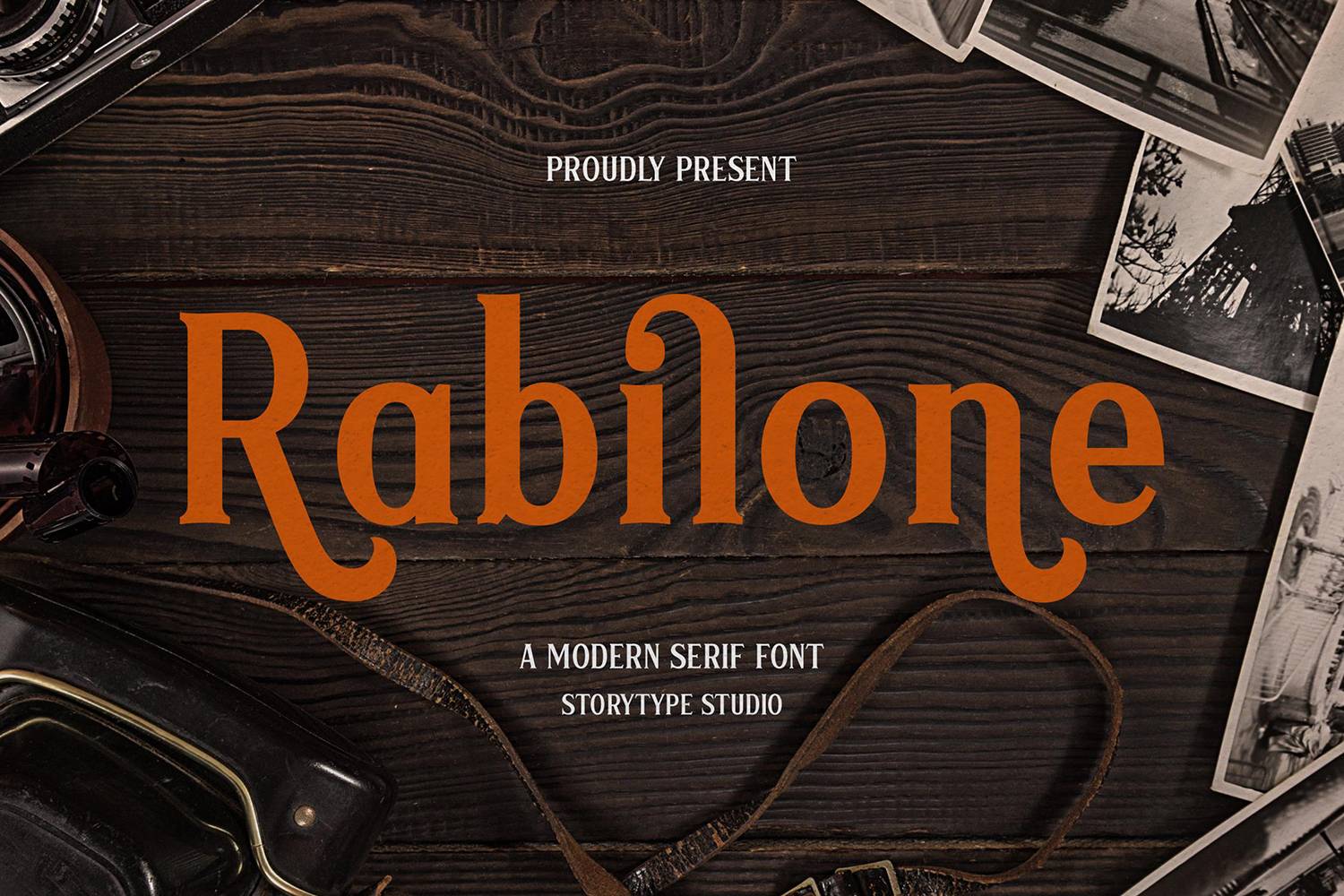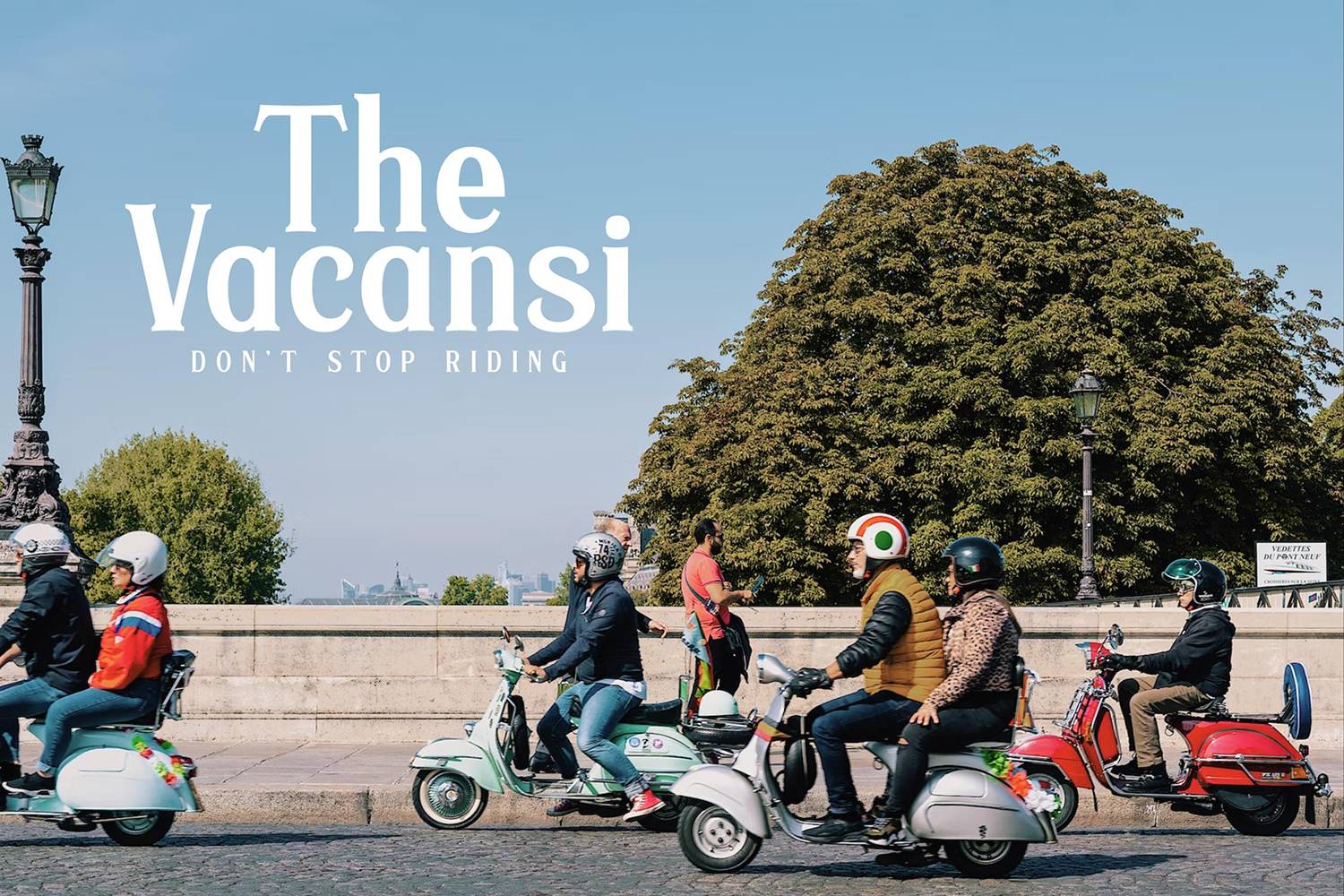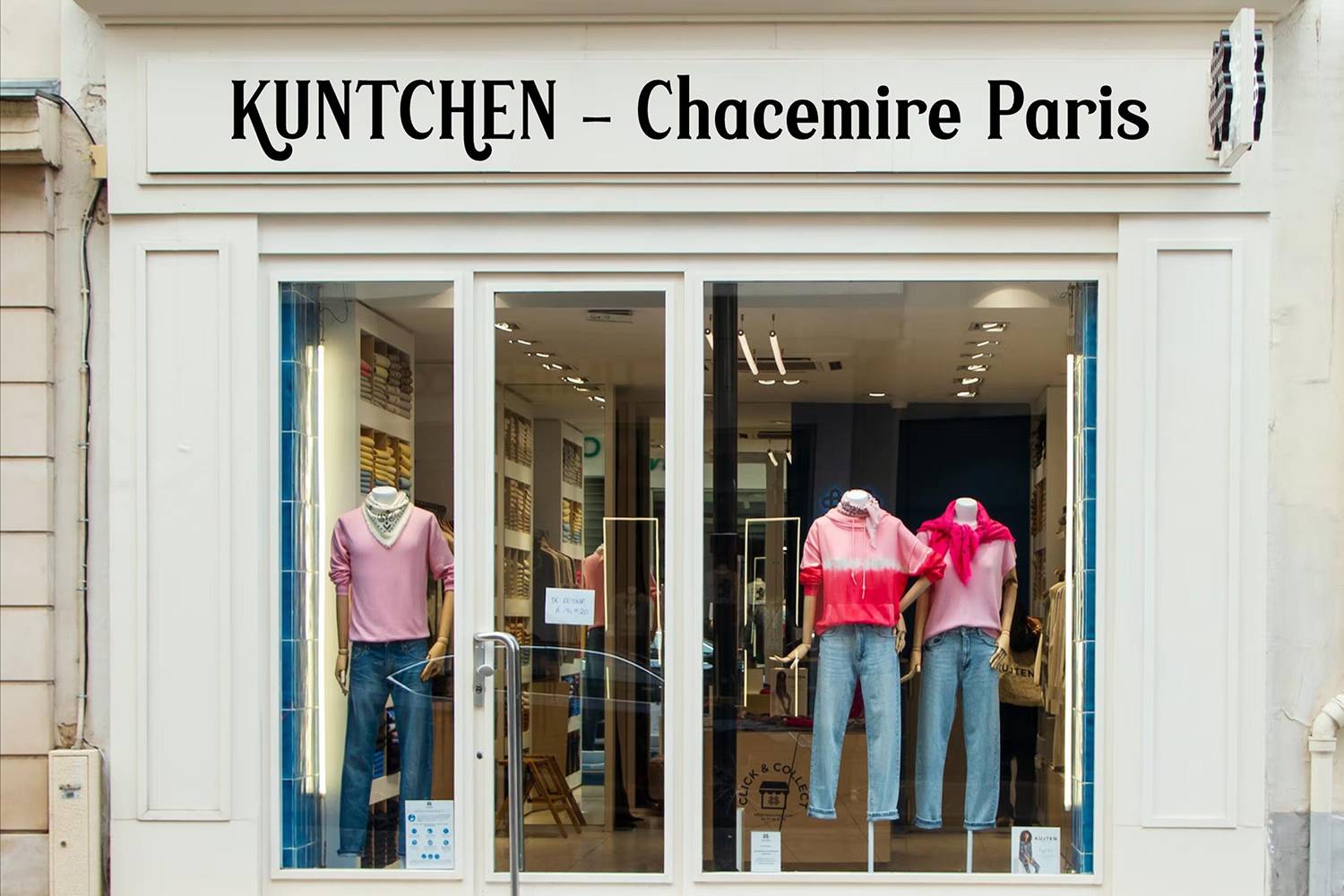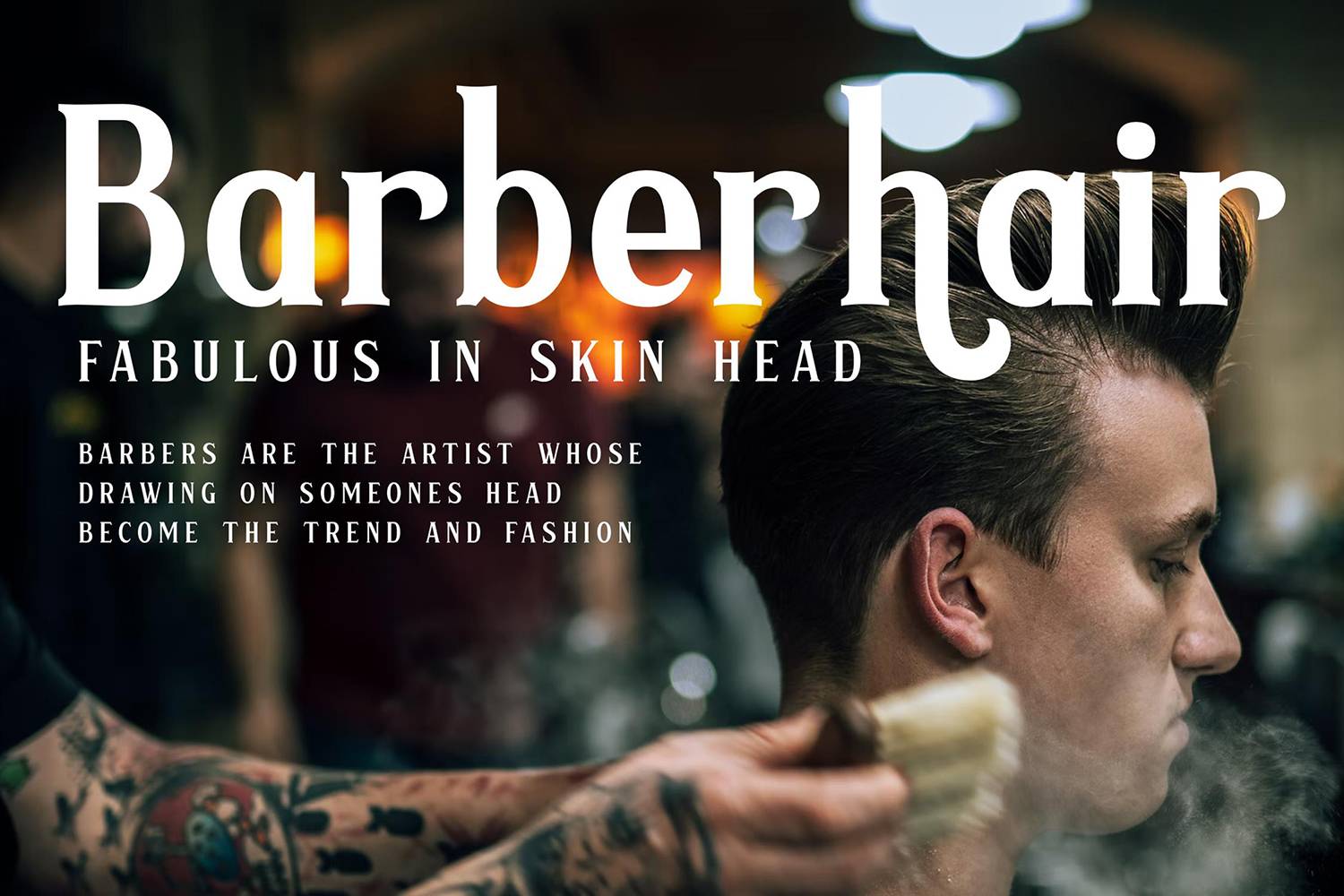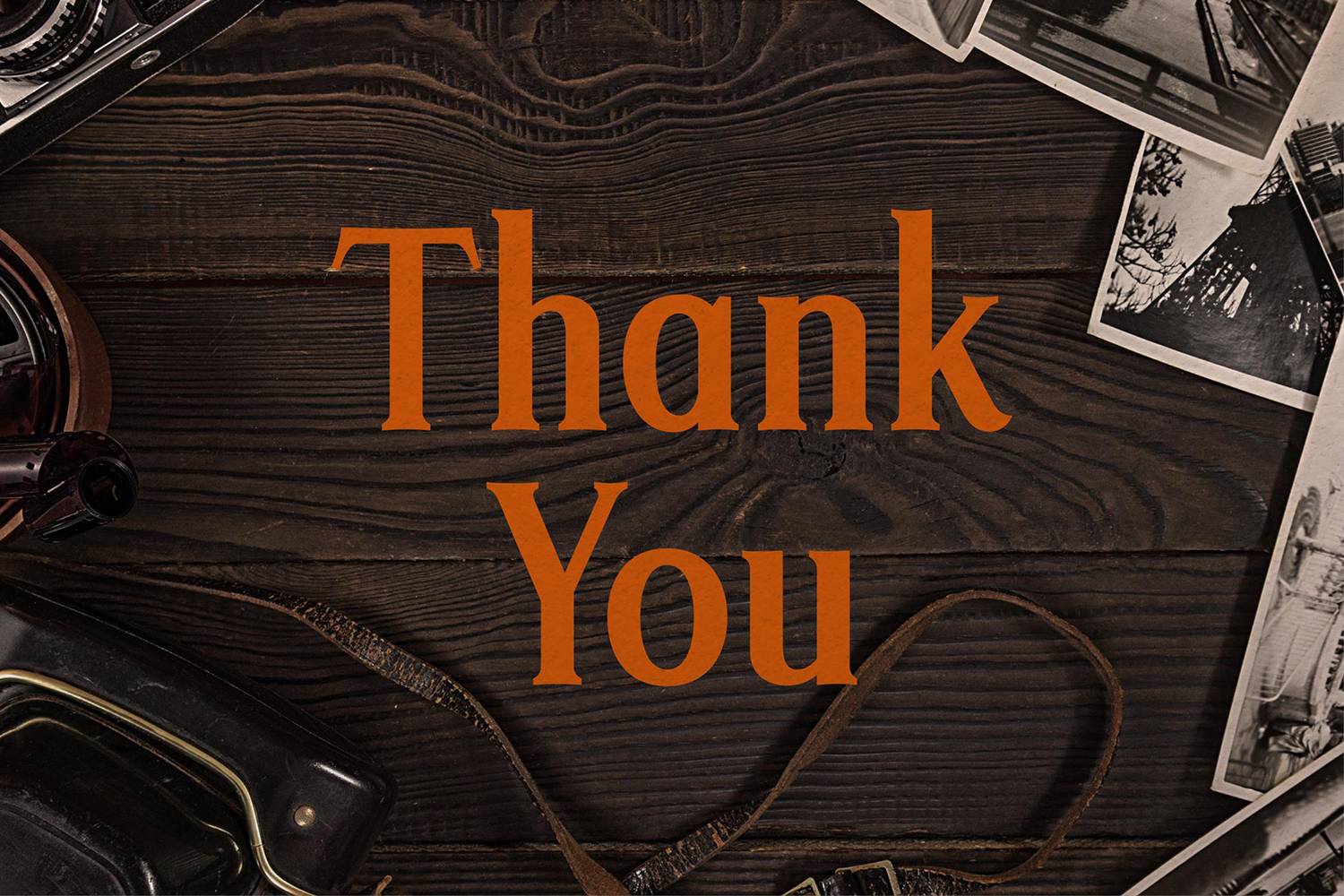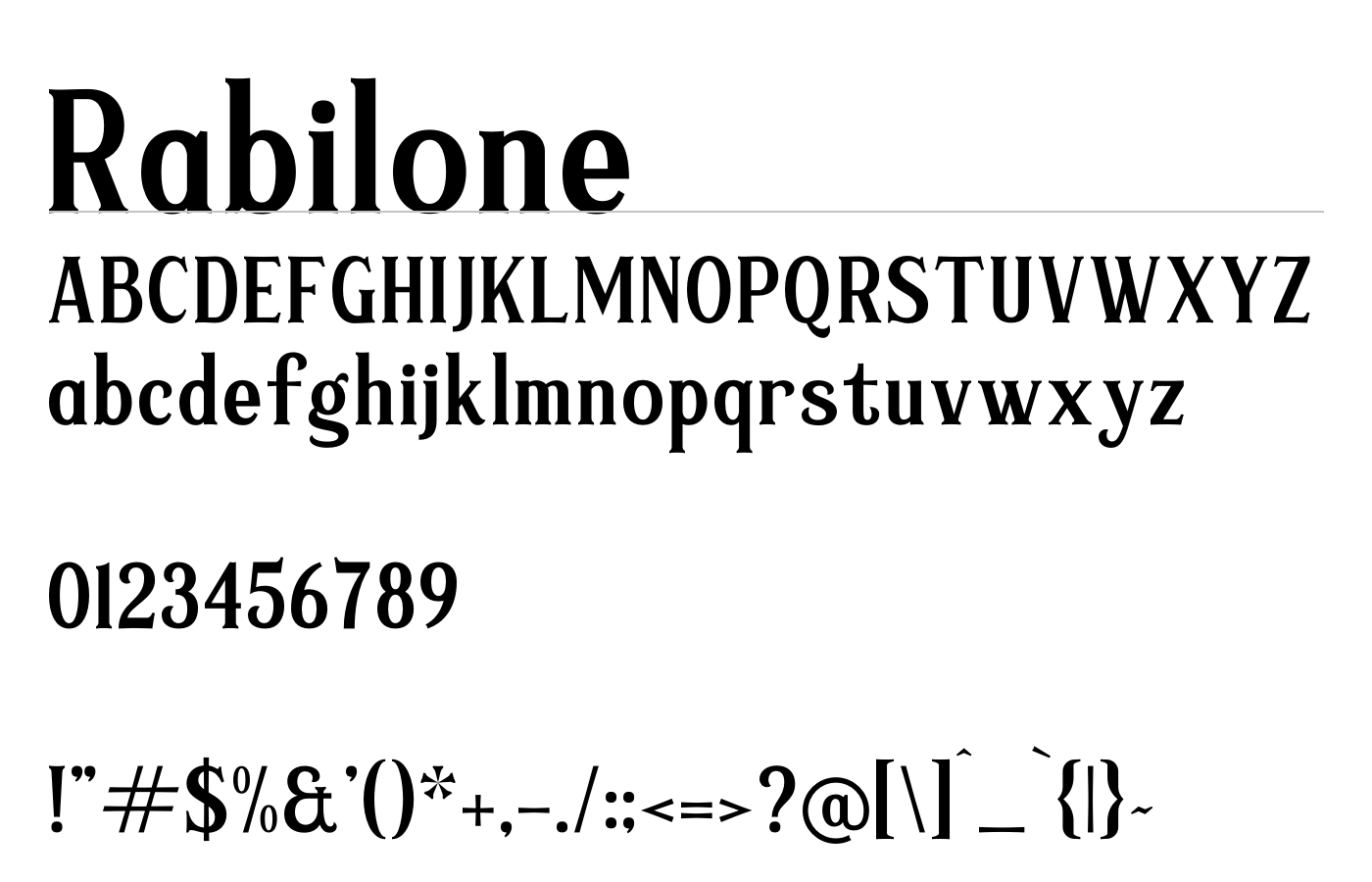
Rabilone is a classic serif font with a strong, elegant character, featuring moderately high contrast between thick and thin strokes and sharp, bracketed serifs that give it a refined, traditional look. Its condensed width and tall x-height make it ideal for impactful headlines, editorial designs, and branding that require a sophisticated yet authoritative presence. This font works well for fashion, luxury brands, and formal contexts where clarity and style must go hand in hand.
Rabilone Font